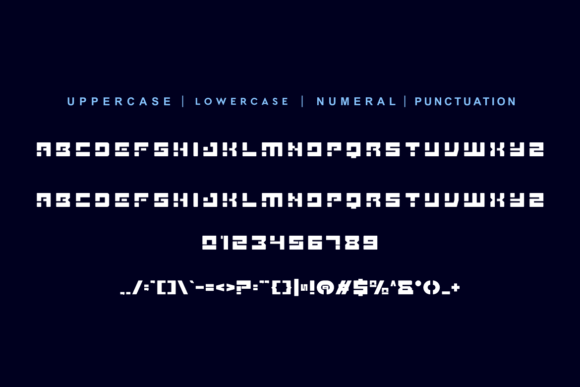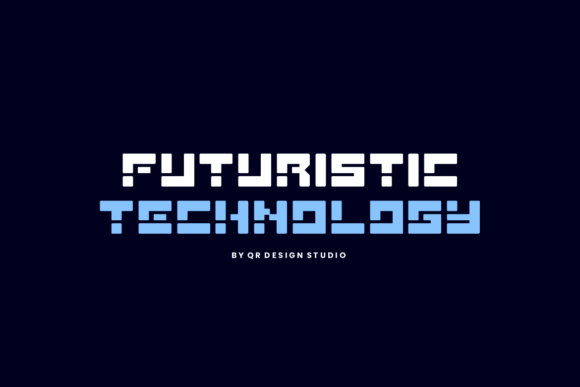
Guner Renus Font
Guner Renus Font is an incredibly cool and unique display font. It has a modern yet whimsical style and it will undoubtedly immerse your designs into a magical world.